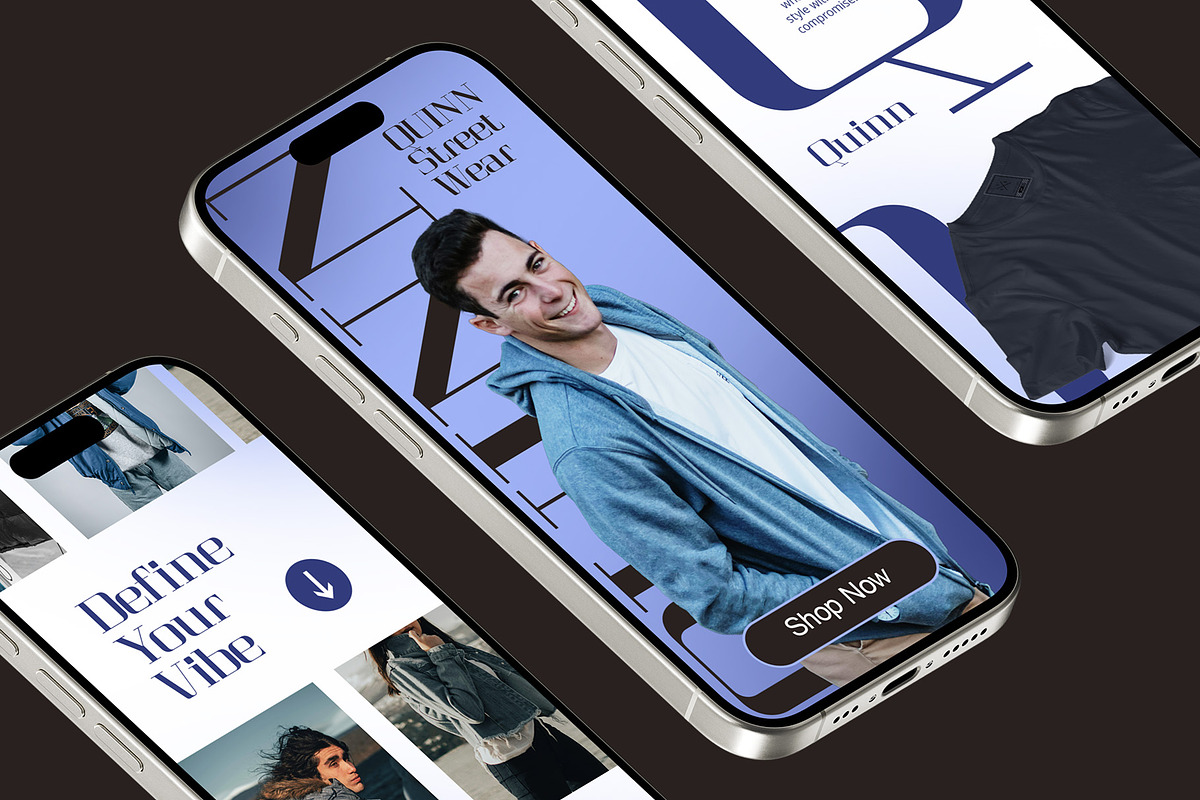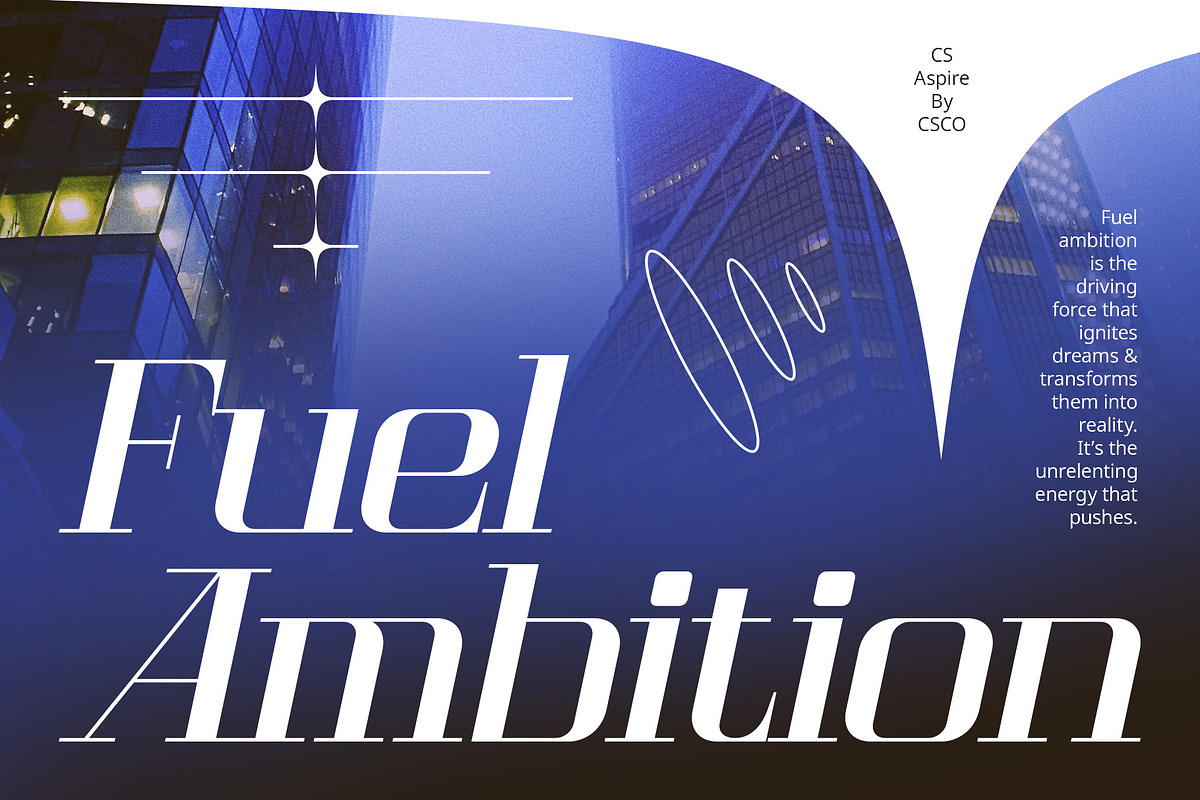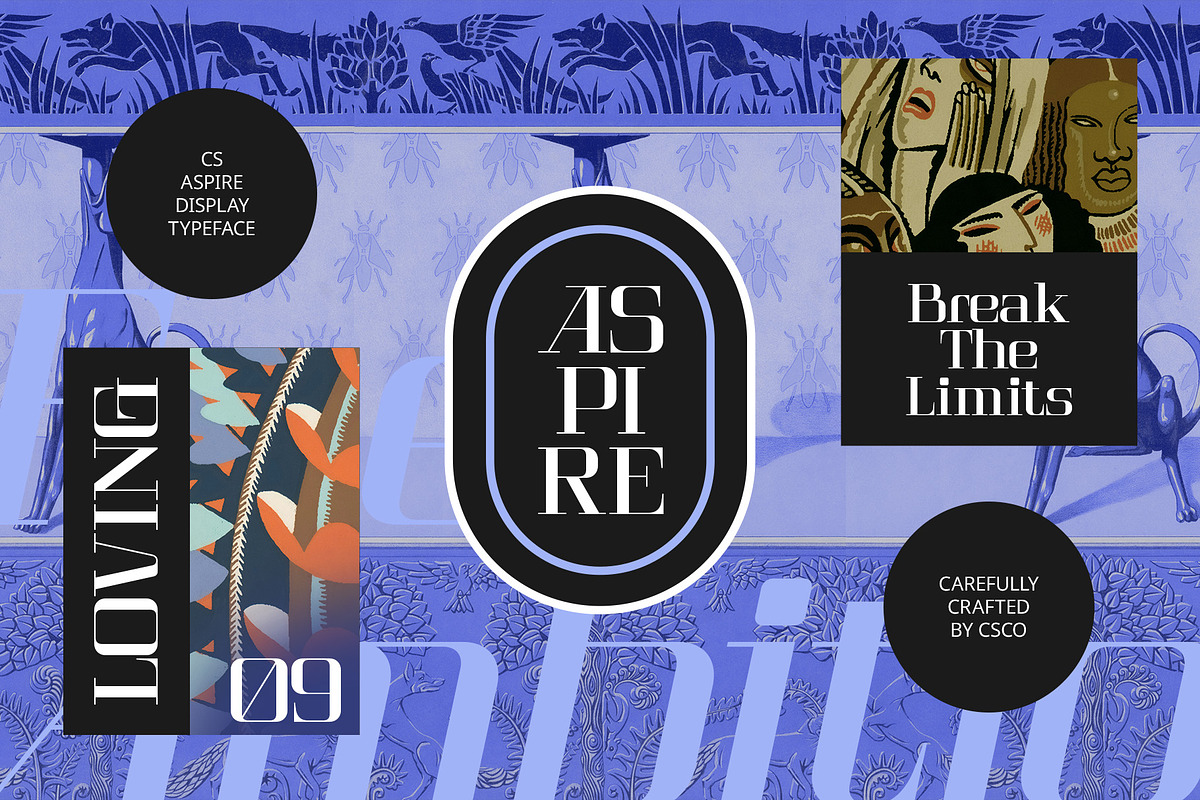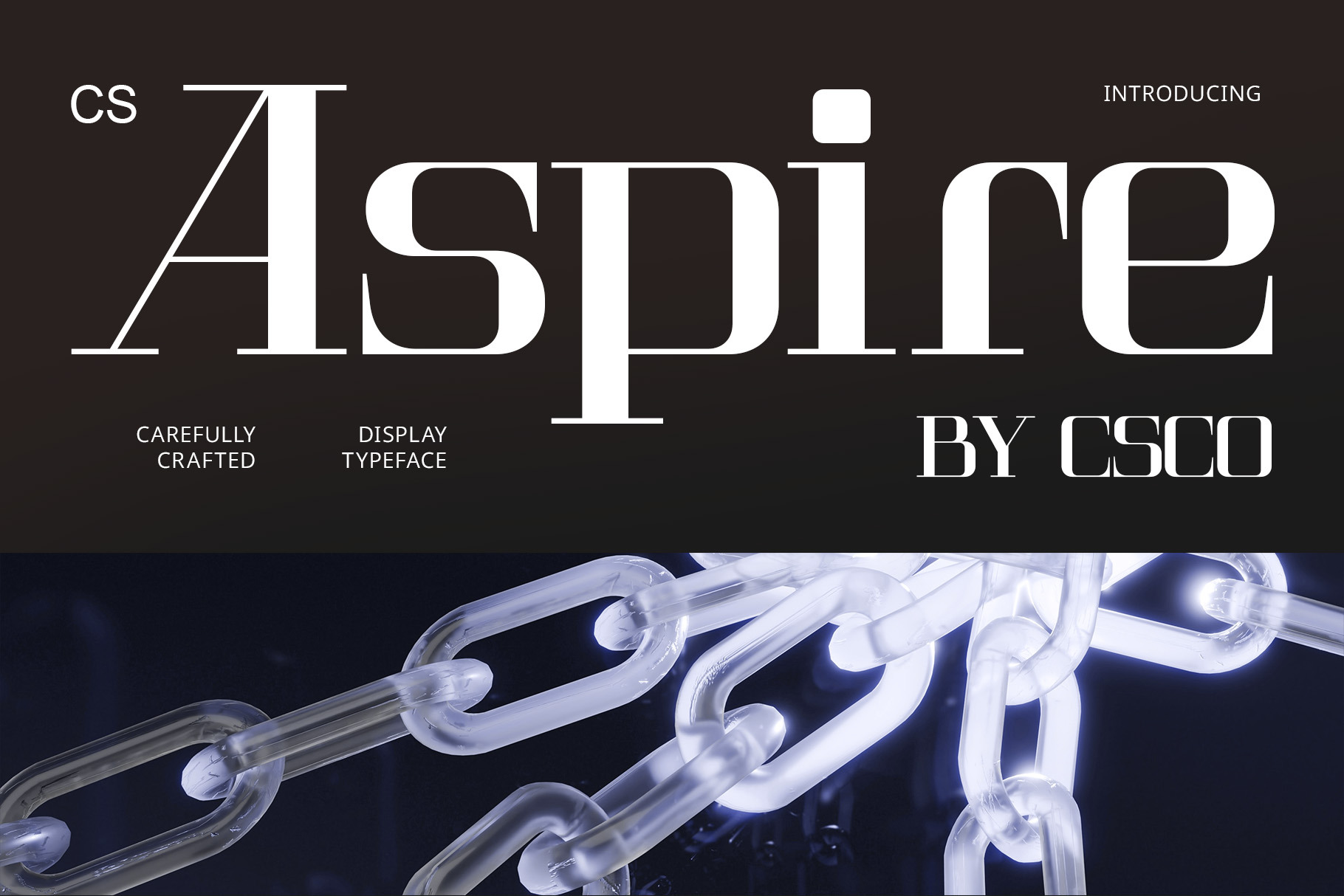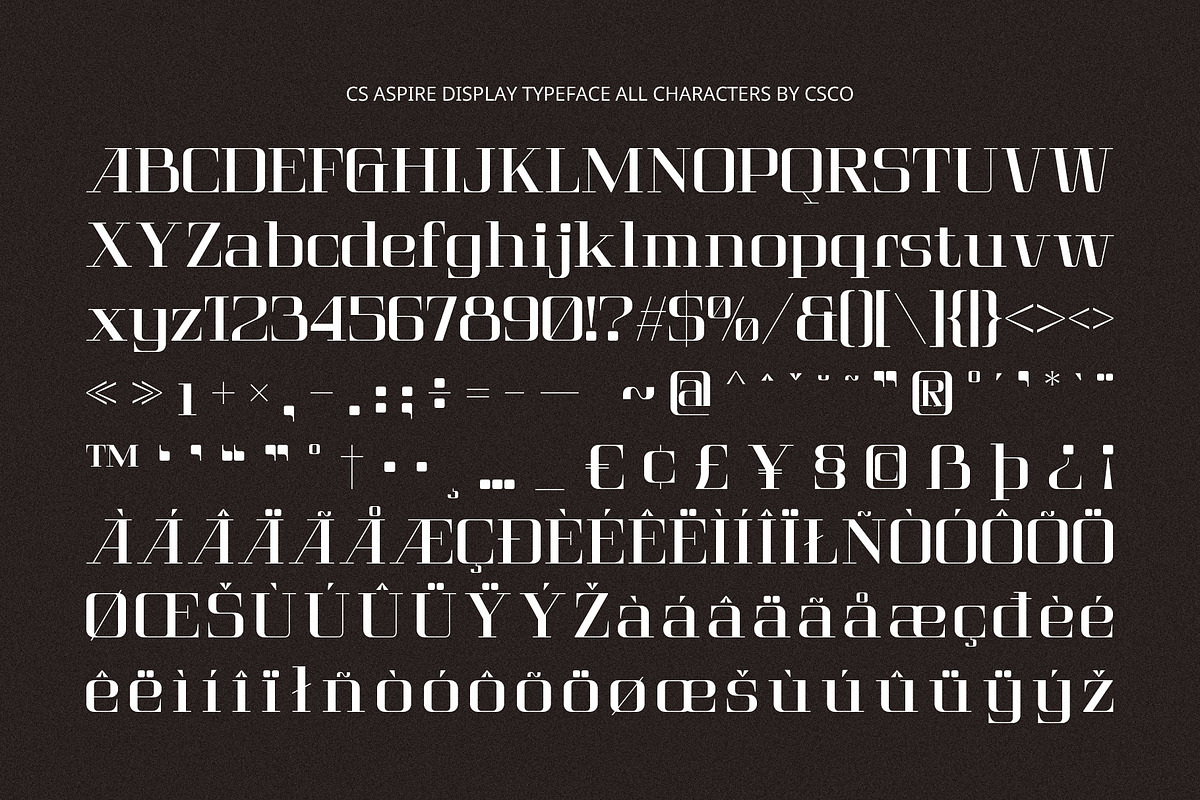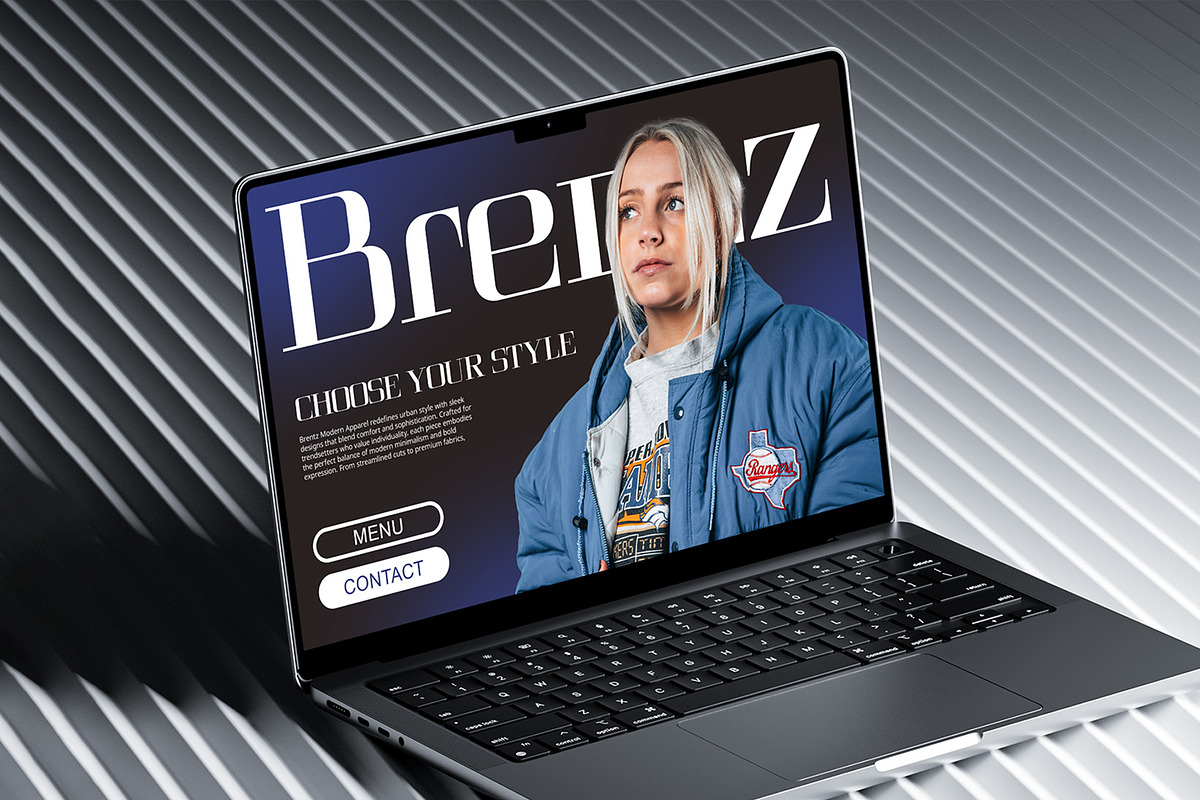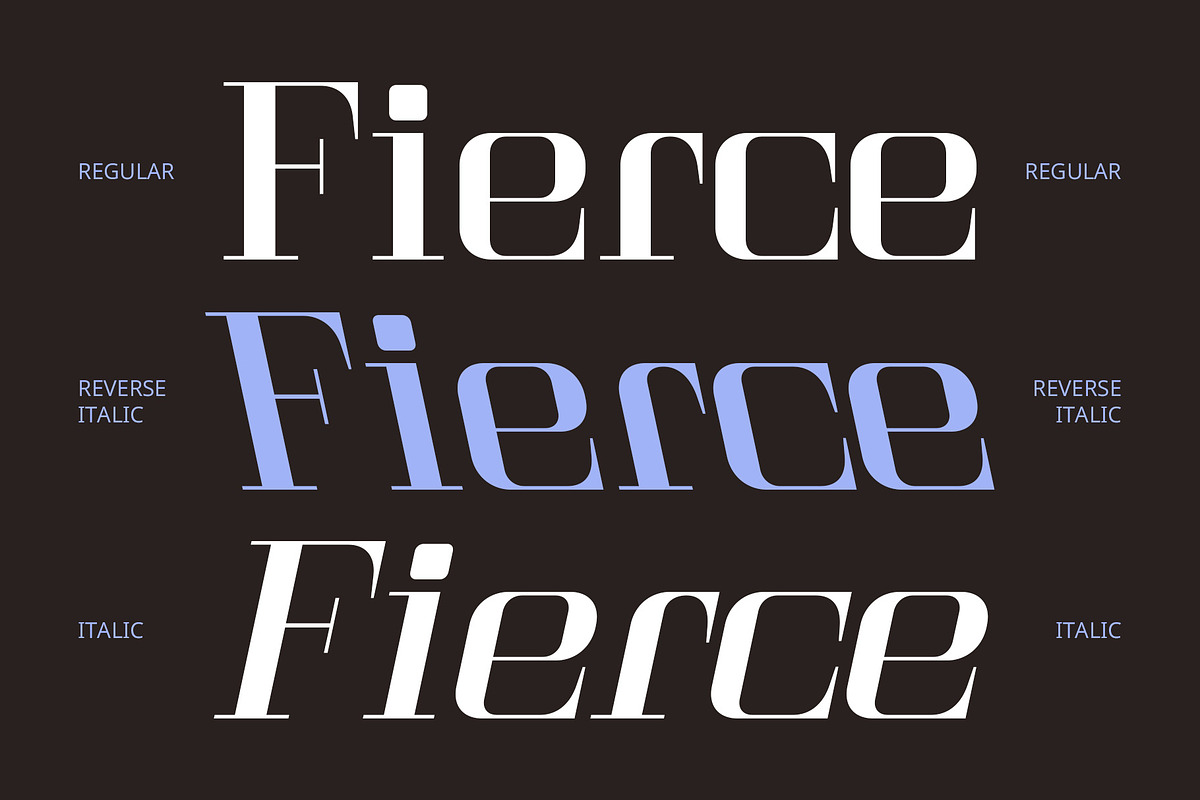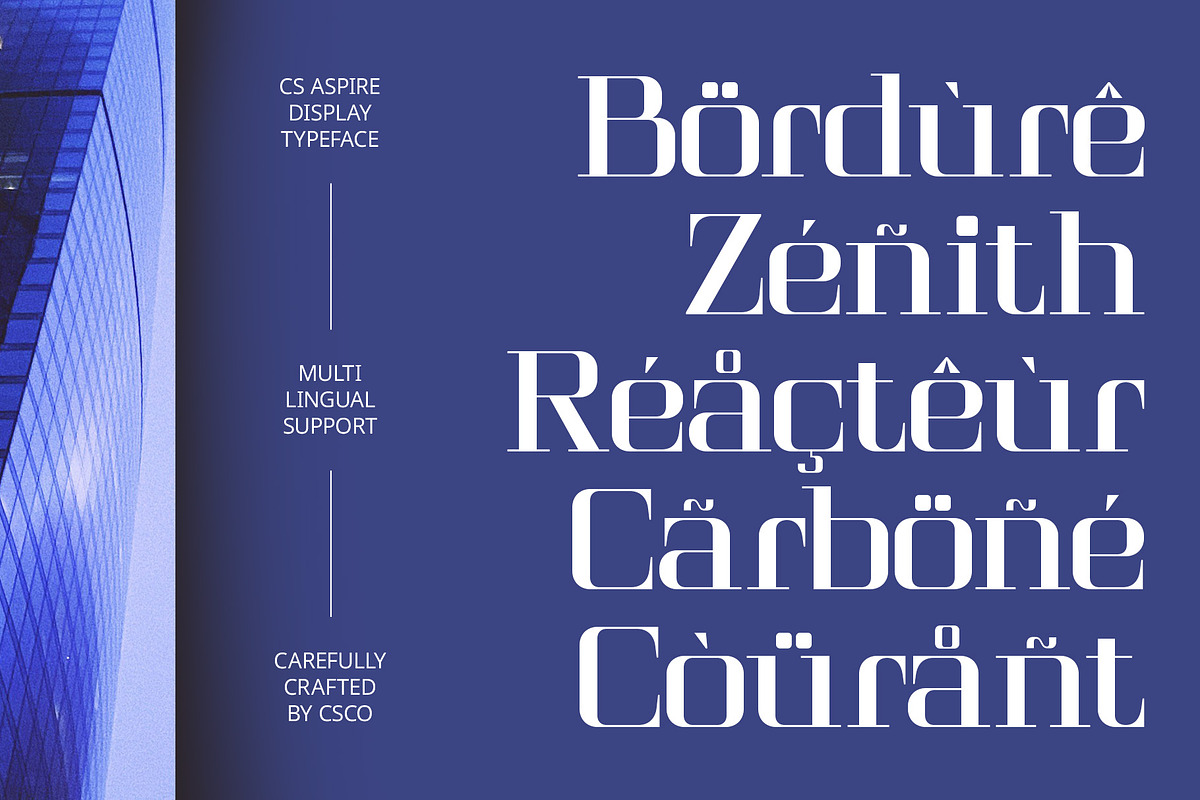
CS Aspire – Techno Font
CS Aspire – Tech Font: Bridging Tradition with Futuristic Innovation
Modern Serif with Tech-Inspired Design CS Aspire is a modern serif font that blends the elegance of traditional serifs with futuristic, tech-inspired elements. The clean lines and angular details provide a perfect balance between sophistication and innovation, making this font ideal for projects that require a forward-thinking yet professional aesthetic. Its carefully crafted design reflects the fusion of the past and the future, providing a sleek look that suits technology, digital branding, and high-tech industries.
Futuristic Aesthetic with Traditional Elegance The geometric precision of CS Aspire, paired with its elegant serifs, creates a distinctive, high-tech look that embodies both timeless beauty and modern innovation. The angular details give the font a futuristic feel while the traditional serifs add an element of familiarity and trustworthiness. This combination of old and new makes CS Aspire ideal for tech brands, digital platforms, and innovative products.
Balanced Contrast for Professionalism and Innovation CS Aspire stands out with its balanced contrast between the traditional serifs and the sleek, geometric shapes. This design choice offers a cutting-edge aesthetic that feels both forward-thinking and grounded, making it perfect for professional use in the tech industry. Whether used in corporate branding, product design, or digital interfaces, the font’s combination of sharpness and refinement ensures a sophisticated yet modern feel.